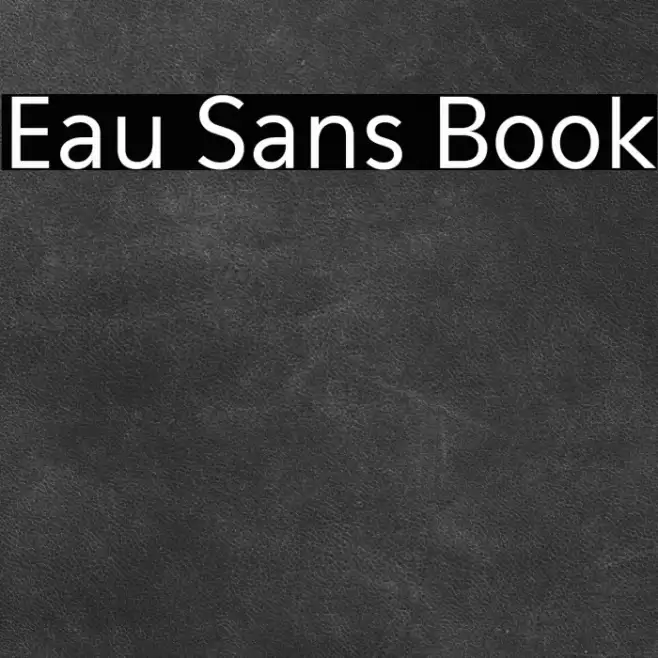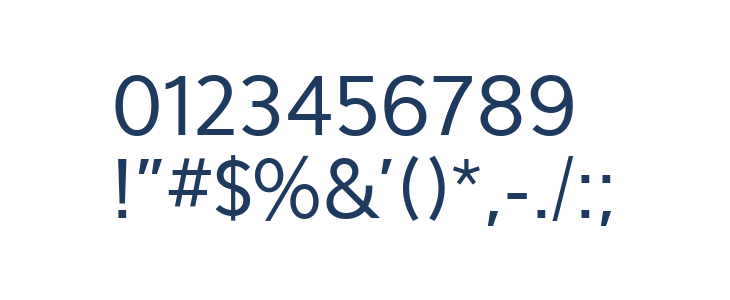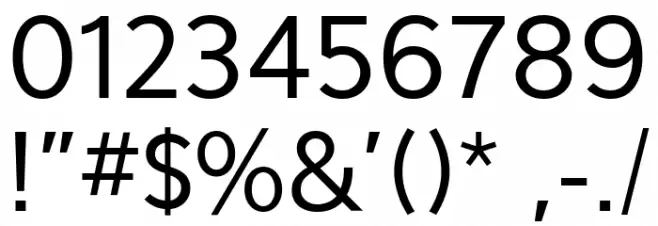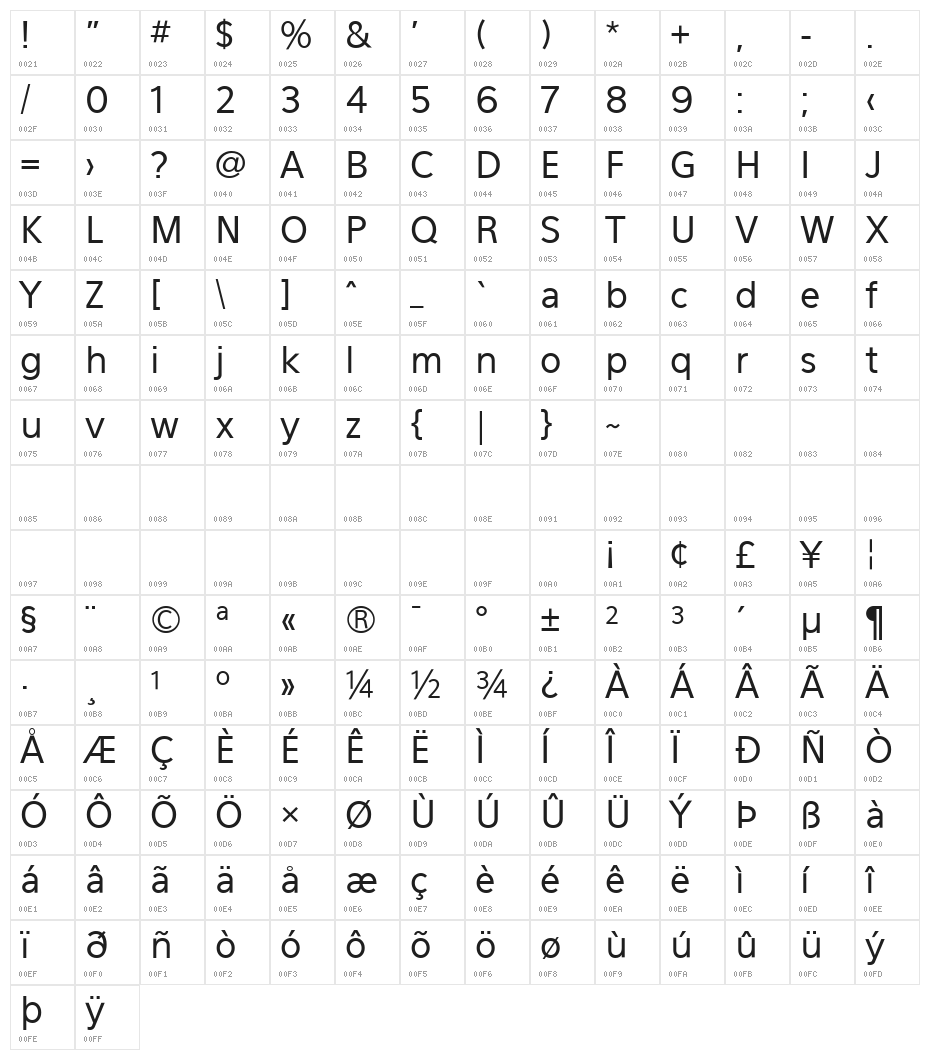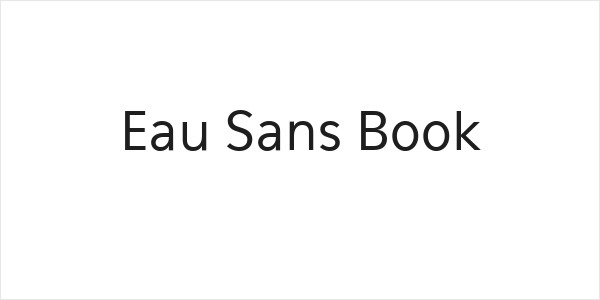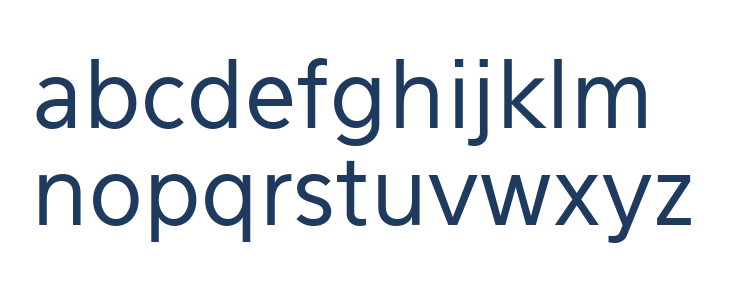
Eau Sans Book Font
Eau Sans Book Description
This font features a clean and modern sans-serif design, characterized by its simplicity and readability. The letters are evenly spaced with a uniform stroke width, providing a balanced and harmonious appearance. The uppercase letters are bold and assertive, while the lowercase letters maintain a consistent style that complements the overall aesthetic. The numerals are clear and distinct, making them easy to read. Special characters are included, offering versatility for various design needs. This font is suitable for both digital and print media, ensuring legibility across different platforms.
A modern, clean sans-serif font with uniform stroke width and balanced spacing from Uncategorized fonts.